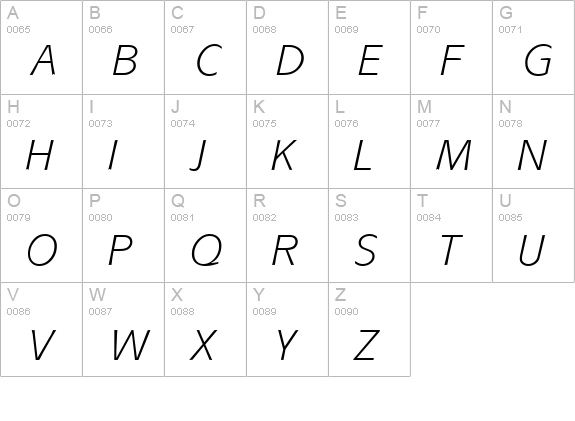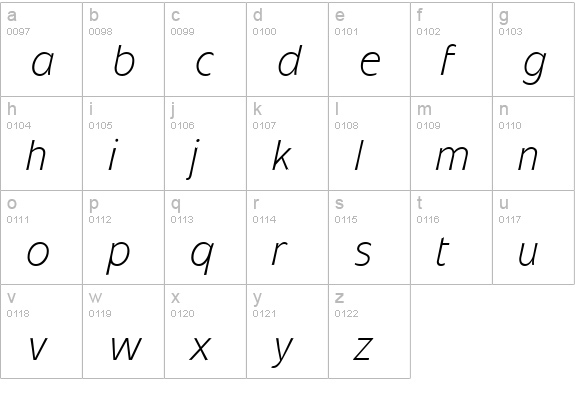
Mixage Italic is a distinctive, italic variant in the Mixage typeface family \xE2\x80\x94 well suited to design and typography projects.
Mixage Italic font is a stylish and modern typeface that exudes elegance and sophistication. Its italicized design adds a touch of flair and creativity to any project, making it perfect for fashion magazines, branding, and luxury products. The sleek lines and graceful curves of Mixage Italic font give it a unique and refined appearance that will capture the attention of your audience. What's even better is that Mixage Italic font is available for free download at FontsMarket.com. Now you can elevate your designs with this beautiful font without having to worry about any additional cost. Don't miss out on the opportunity to enhance your projects with the timeless charm of Mixage Italic font. Download it today and let your creativity shine!